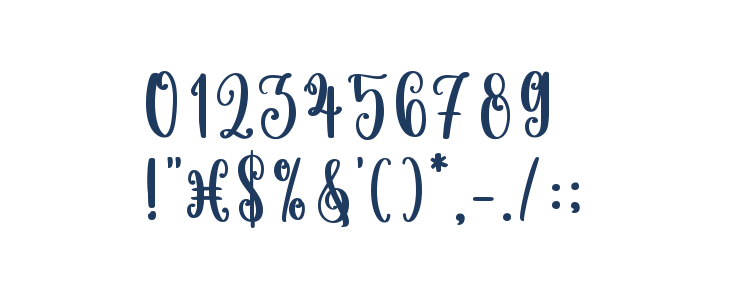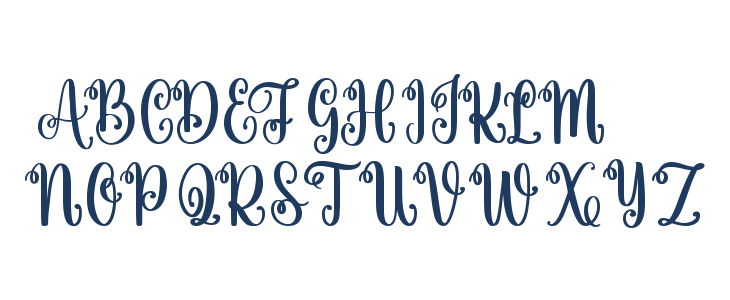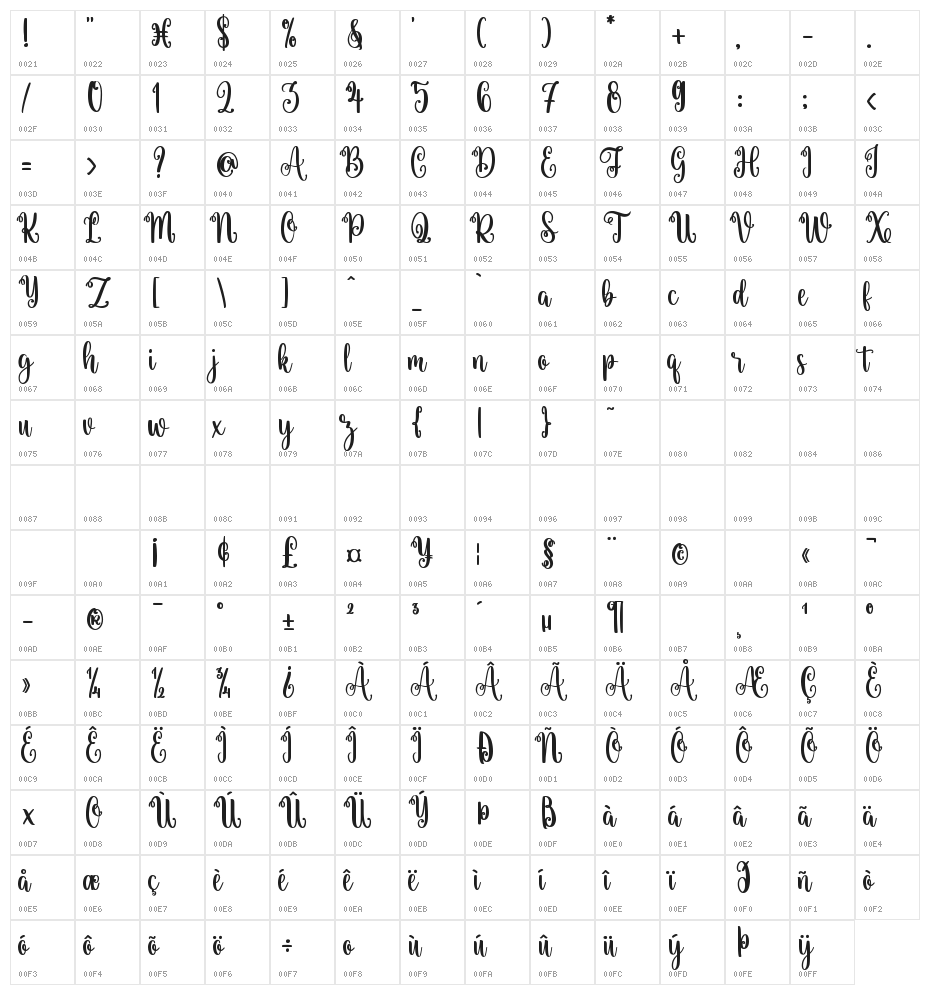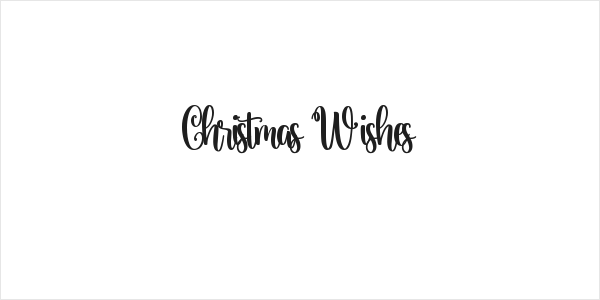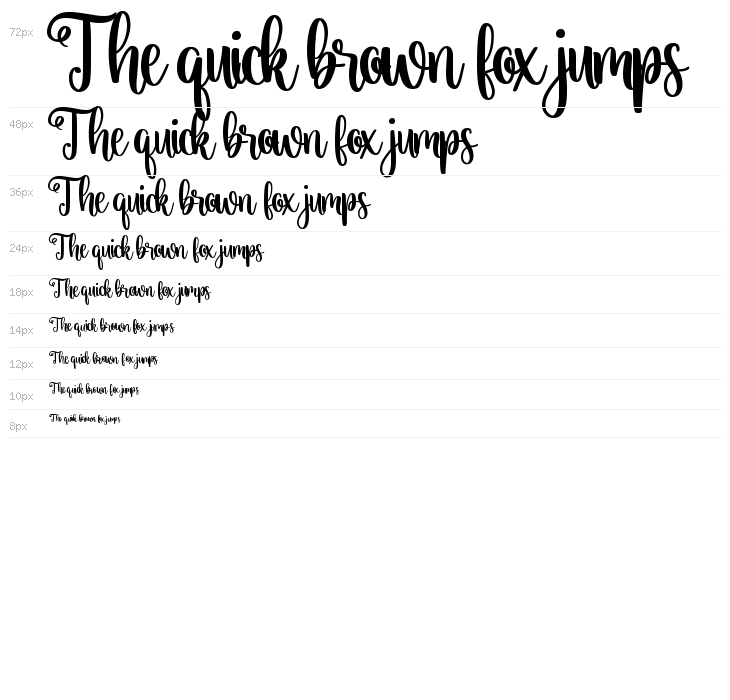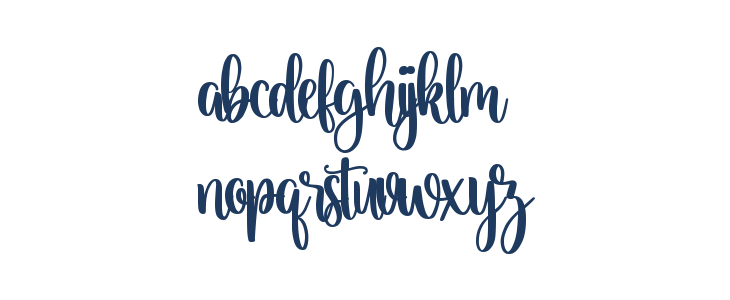
Christmas Wishes Font
Christmas Wishes Description
A playful, decorative script font with bold, rounded strokes and prominent loops, featuring both uppercase and lowercase letters with a whimsical, hand-lettered appearance. The numerals and punctuation are similarly ornate, making the font highly expressive and festive.
| Overall Style | Decorative, Festive, Handwritten |
| Use Case | Headlines, Greeting cards, Logos, Decorative text |
| Proposed Projects | Holiday cards, event invitations, festive branding, posters, social media graphics. |